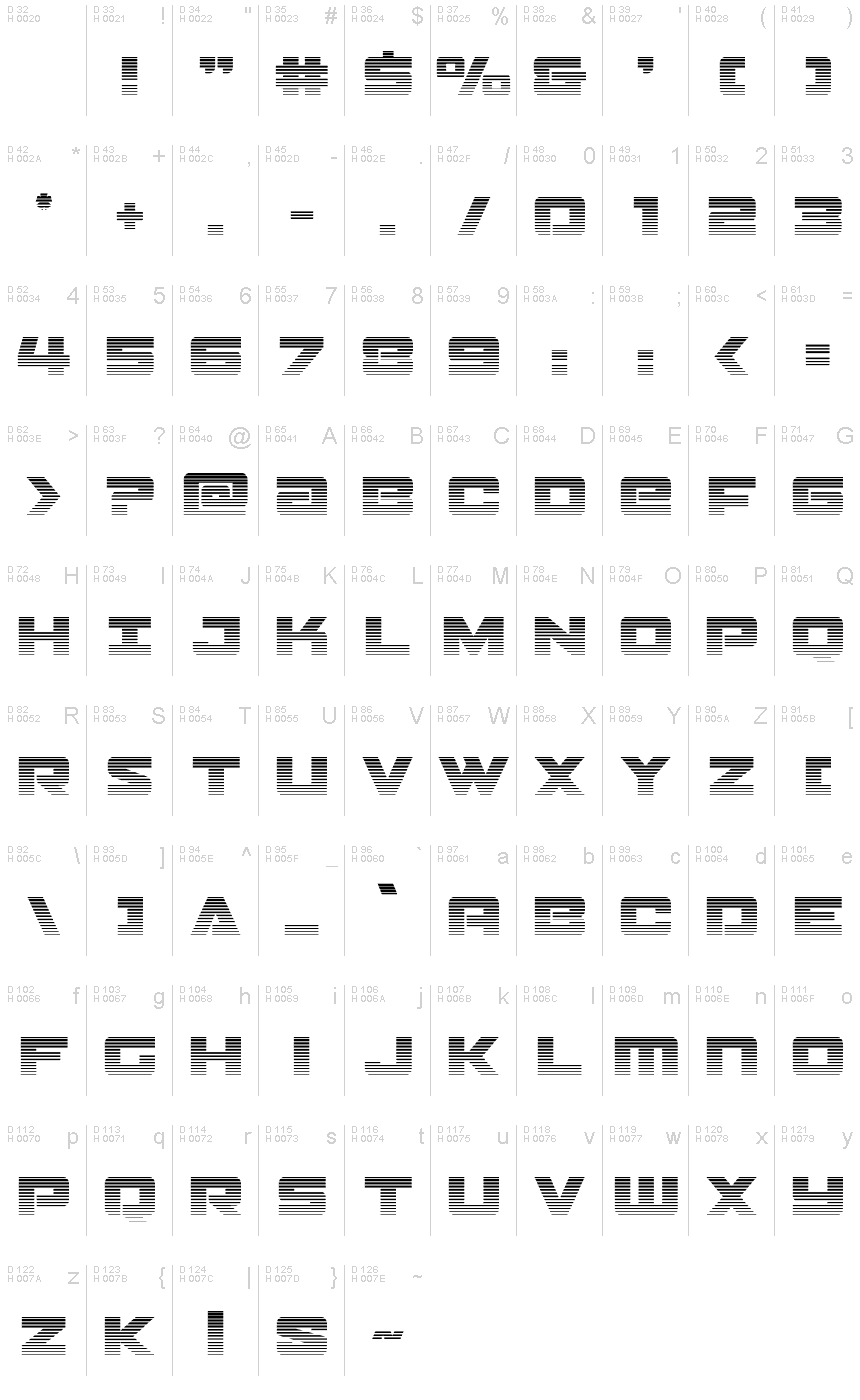
Power Broker Gradient 2
Power Broker Gradient 2 emerges from the Power Broker font family as a bold statement in the realm of display typefaces. Conceived by Iconian Fonts, this font carries a distinctly futuristic style that demands attention. Its extra-bold weight is complemented by a gradient that infuses depth and dimension, making it an outstanding choice for those seeking to imbue their creative projects with a sense of dynamism and modernity.
The sharp lines and assertive angles of Power Broker Gradient 2 offer an aesthetic appeal that is simultaneously contemporary and timeless. This typeface holds great potential for use in various design mediums such as branding, advertising campaigns, poster design, and anywhere a touch of cutting-edge visual flair is needed. Its commanding presence ensures that any text set in Power Broker Gradient 2 will not just be read but experienced.